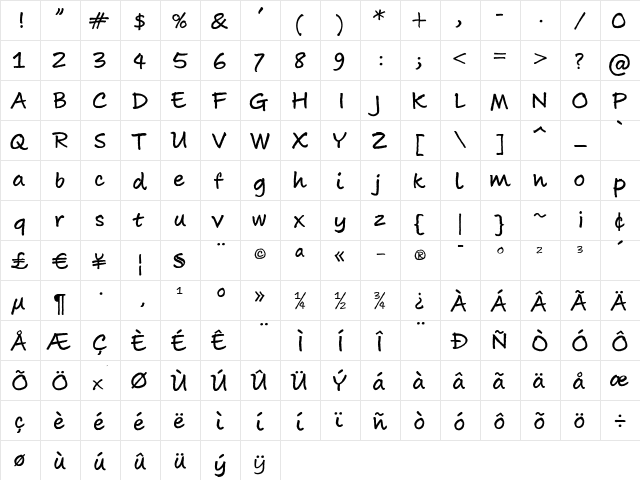
Aboutface Regular
Design Context for Aboutface Typeface
Aboutface takes a measured approach to typography — its balanced proportions and neutral character make it a reliable workhorse for both digital and print work.
Pro Tip: Use Aboutface in both headline and body roles to test its range before committing to a single application.